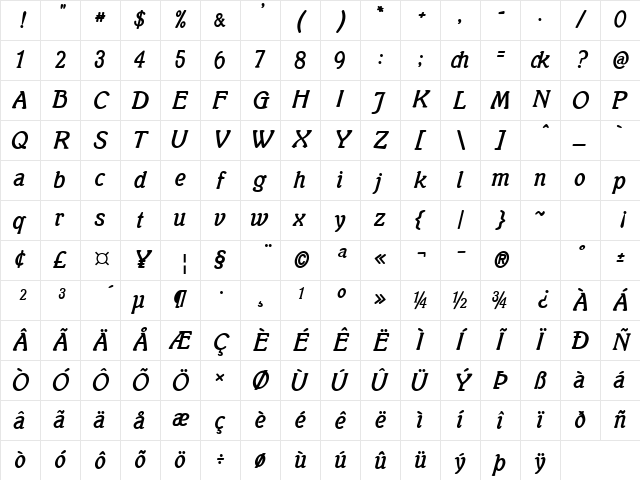
Complete Mutter Krause Halbfett Bold glyph index. Displaying only characters natively supported by Mutter Krause Halbfett Bold font.
Mutter Krause Halbfett is a composed and adaptable typeface that performs quietly and consistently across a wide range of design contexts. Its bold stroke weight gives it real presence on the page.